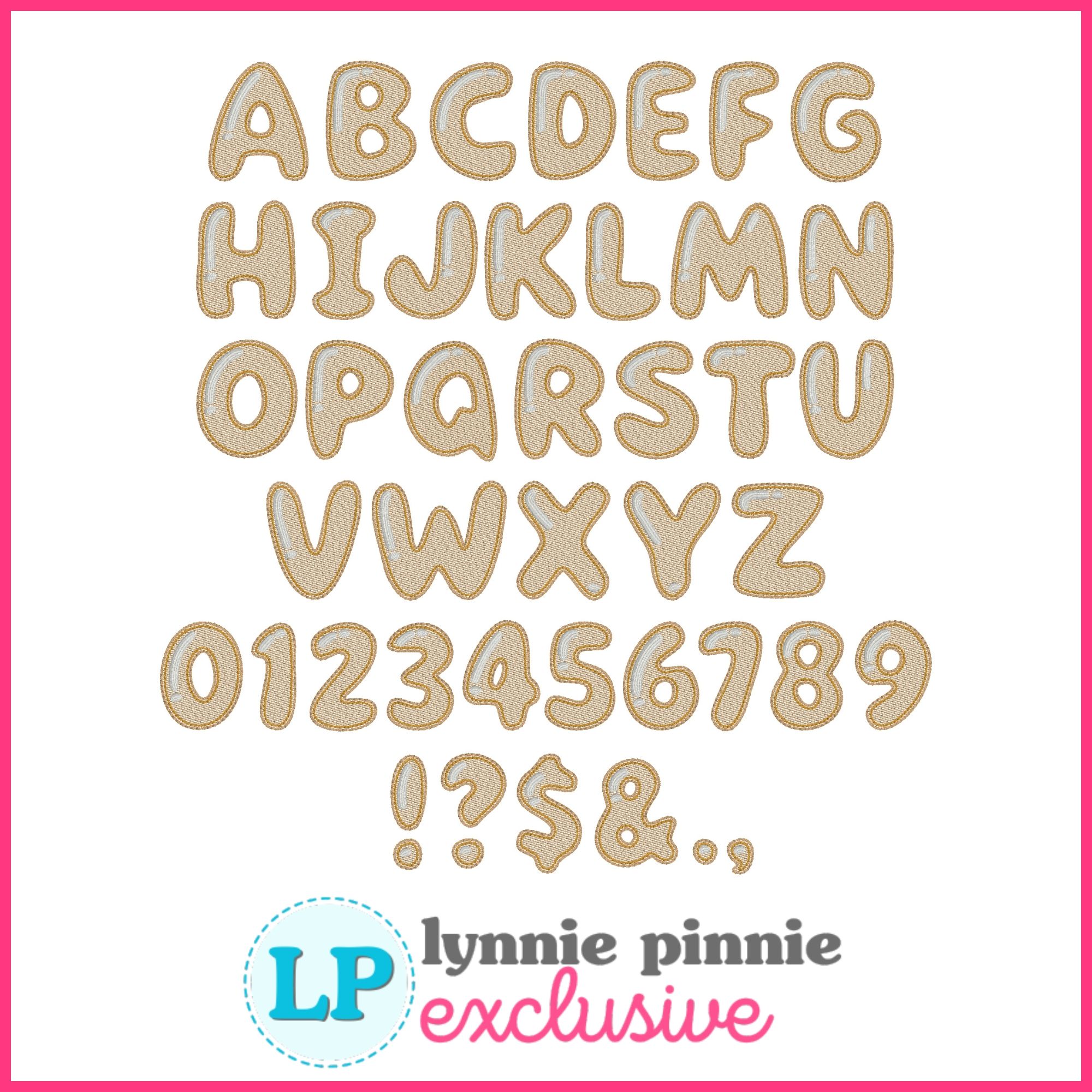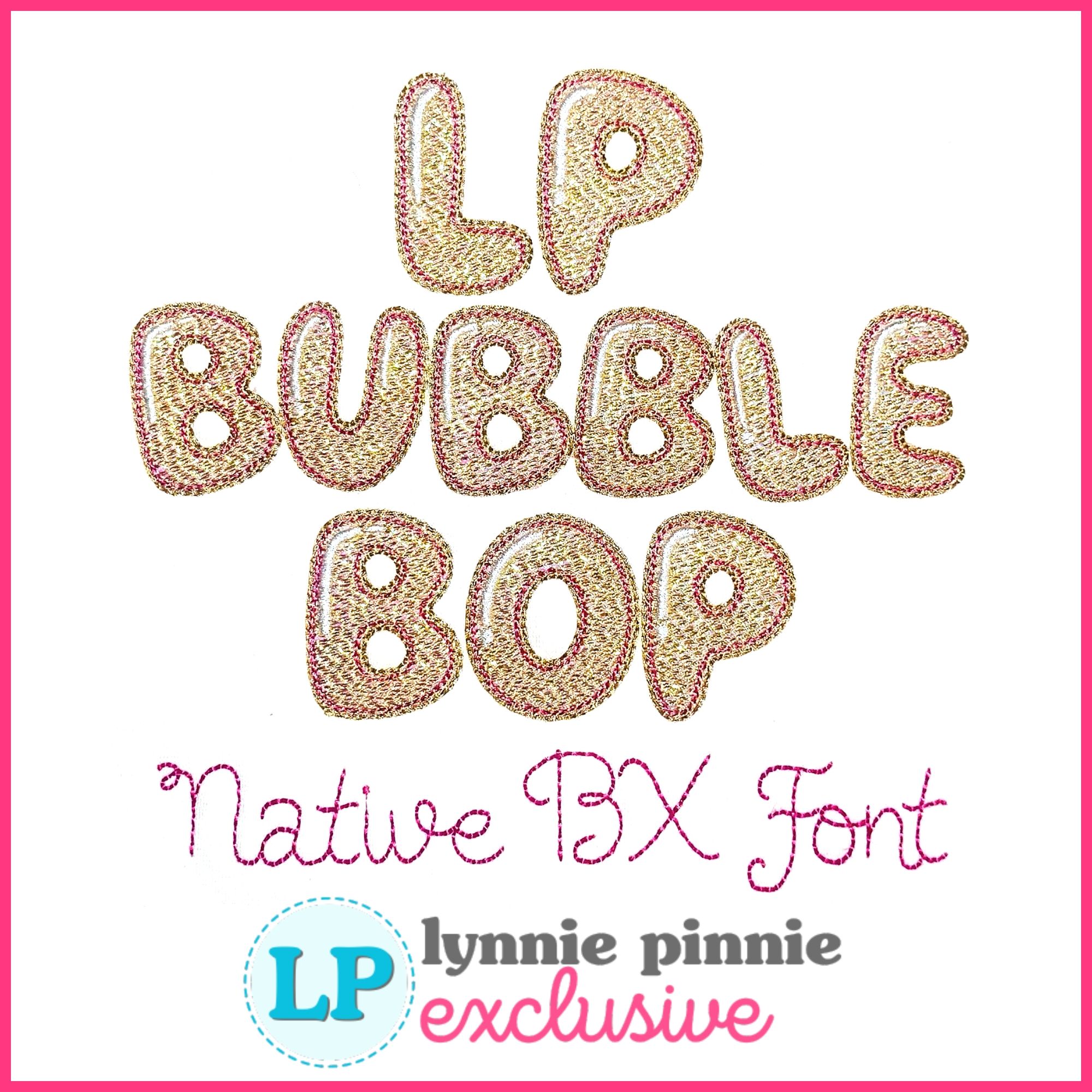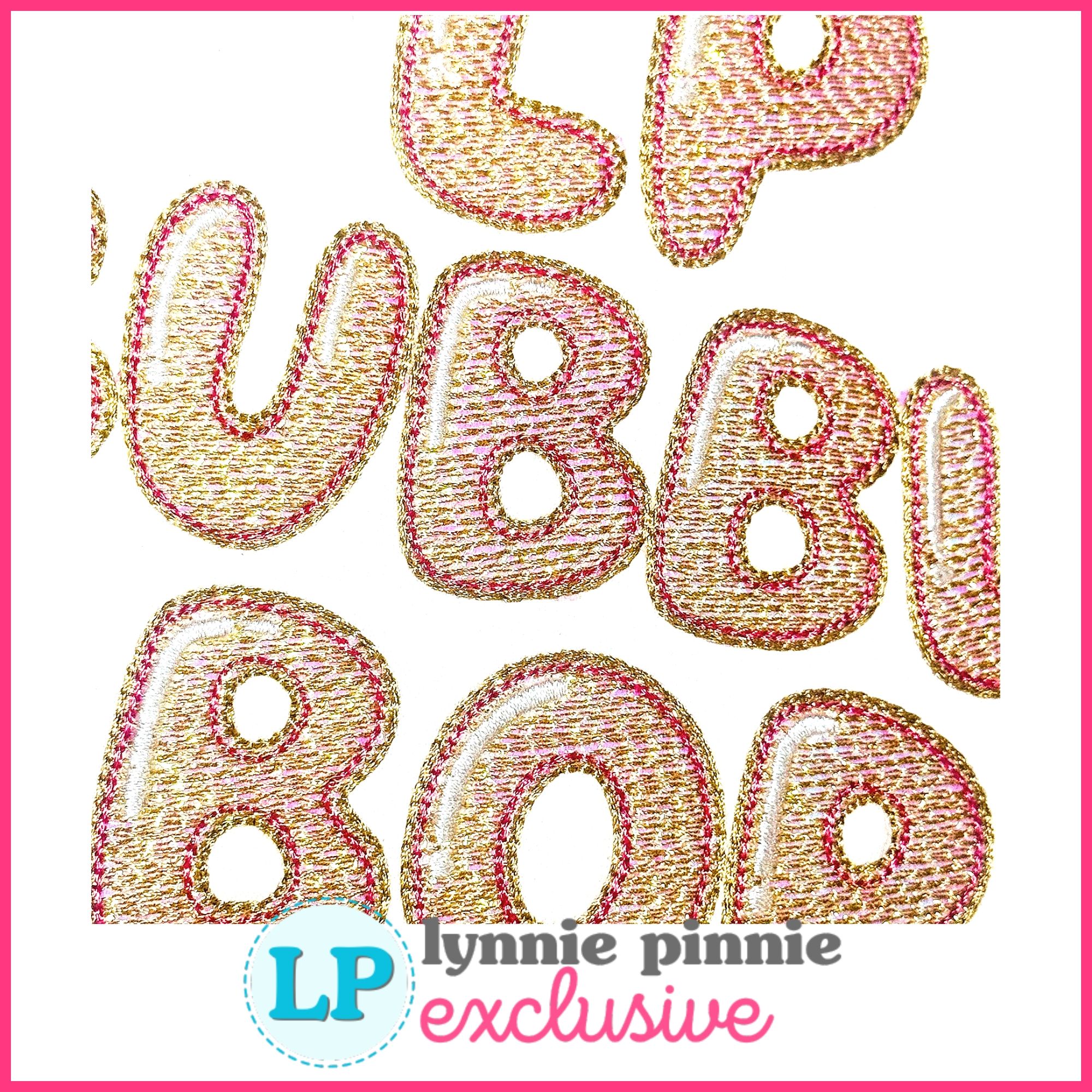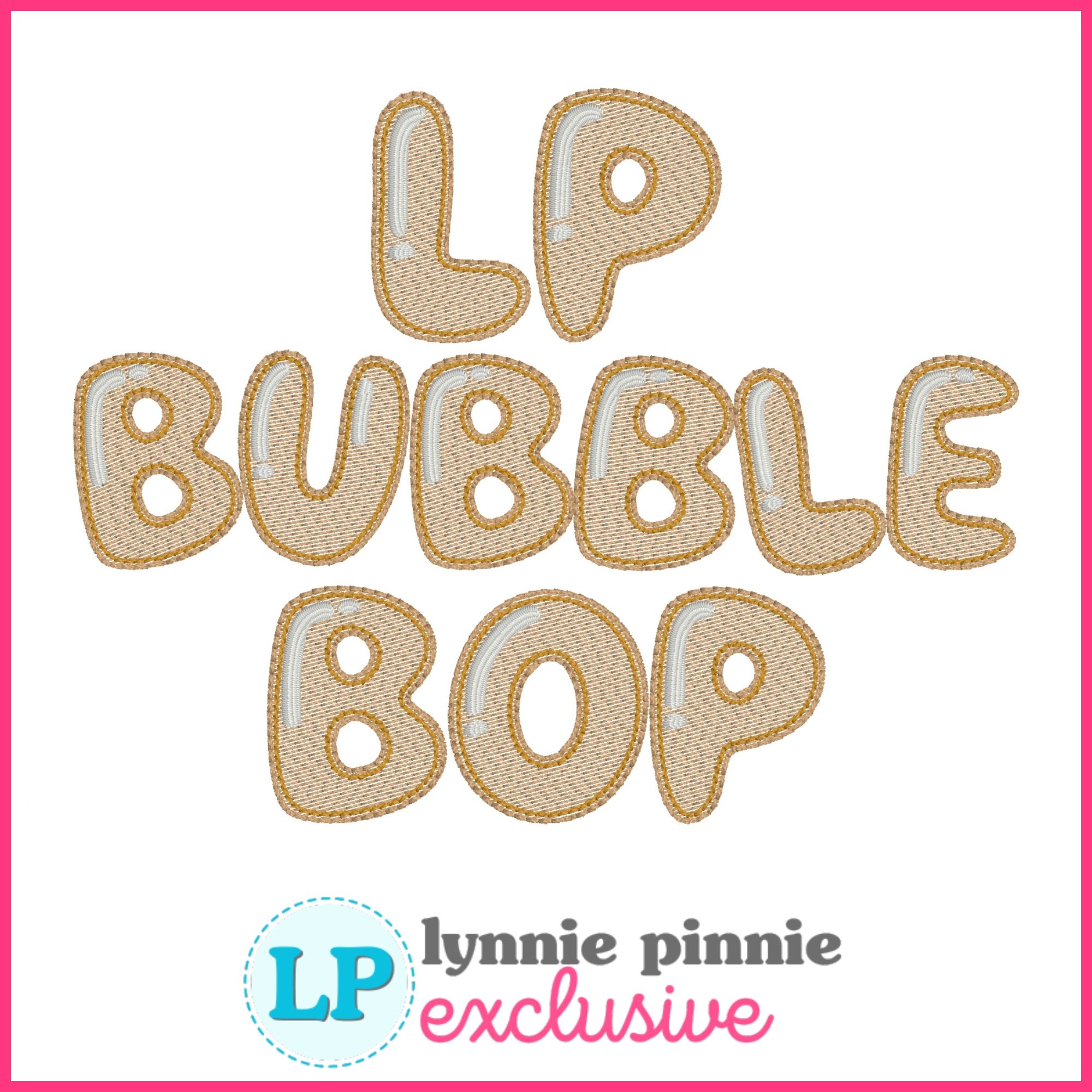
Bubble Bop Sketch Fill (optional mylar) Machine Embroidery Font – 7 Sizes + Scalable Native BX File
Bubble Bop Sketch is a bold, playful uppercase embroidery font with a sketch-style fill, perfect with mylar for that extra sparkle. Includes numbers and punctuation to complete your custom creations.